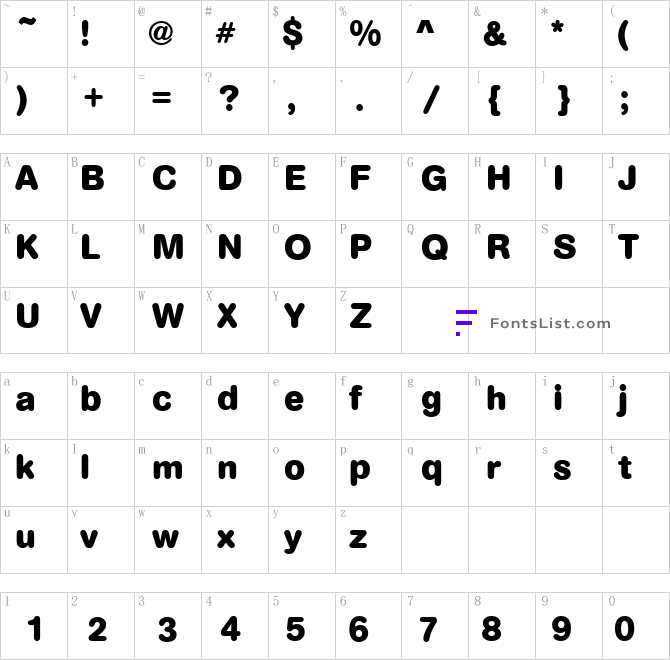
- Font Name:Arezzo-Rounded-Bold
Arezzo-Rounded-Bold-Regular.ttf is a very beautiful artistic font, Arezzo-Rounded-Bold-Regular.ttf is widely used in the design and printing of various books and pictures,Arezzo-Rounded-Bold-Regular.ttf has a strong visual impact,Arezzo-Rounded-Bold-Regular.ttf is a commonly used font in newspapers, magazines and books, and is used in posters, e-commerce Poster design, store design, logo design, font design and other fields.Arezzo-Rounded-Bold-Regular.